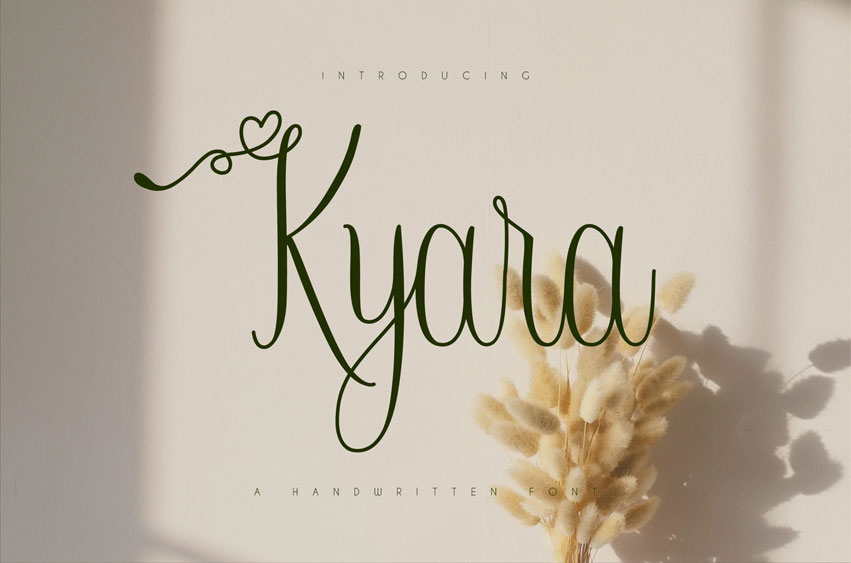
Kyara Font
Kyara Font is a stunning script handwritten font that exudes both elegance and individuality. With its smooth, flowing curves and refined strokes, Kyara brings a touch of sophistication to any design.
Its organic, hand-drawn qualities make it ideal for adding a personal, intimate feel to projects like invitations, logos, and branding.